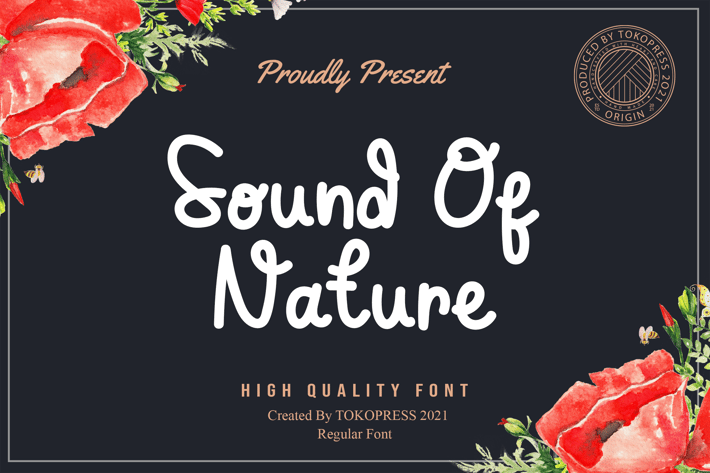
Sound of Nature - Cute Fancy font
tokopress
Sound of Nature is a feminine handwritten script that blends flowing letterforms, organic curves, and graceful proportions for a soft yet stylish impact. It offers a natural, romantic vibe, perfect for fashion boutiques, beauty packaging, or any brand that needs a gentle, stylish touch. Its smooth calligraphic strokes evoke both authenticity and class, making it a versatile choice across digital and print platforms. The typeface features bouncy baselines and elegant contrast, delivering both visual charm and professional polish.
Whether you're crafting a luxury skincare logo, a fashion catalogue headline, or a gift voucher with charm, Sound of Nature turns words into visual poetry. Its romantic rhythm appeals to creative professionals seeking a soft, emotional tone—perfect for branding, product labels, Instagram quotes, and editorial layouts. The font makes a brand feel both welcoming and refined, helping it stand out in beauty, wellness, or boutique-style markets
Key Features
Soft Script Feel: Organic flow with balanced elegance
Perfect for Lifestyle Brands: From cosmetics to fashion promos and lookbooks
Graceful Readability: Stylish but legible at multiple sizes
Versatile Use Cases: Logos, packaging, social media, quotes, and wedding stationery
* Feminine Aesthetic: Romantic curves with a professional touch